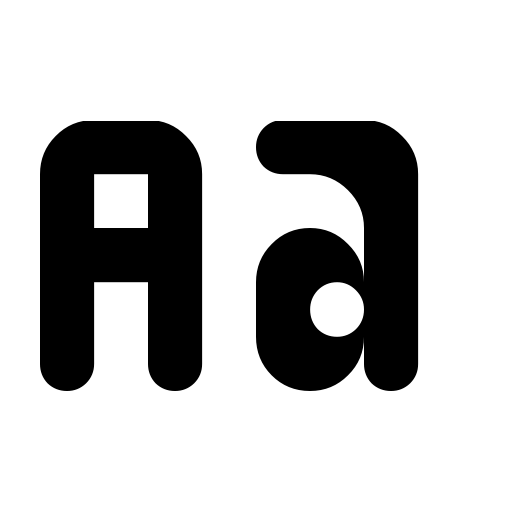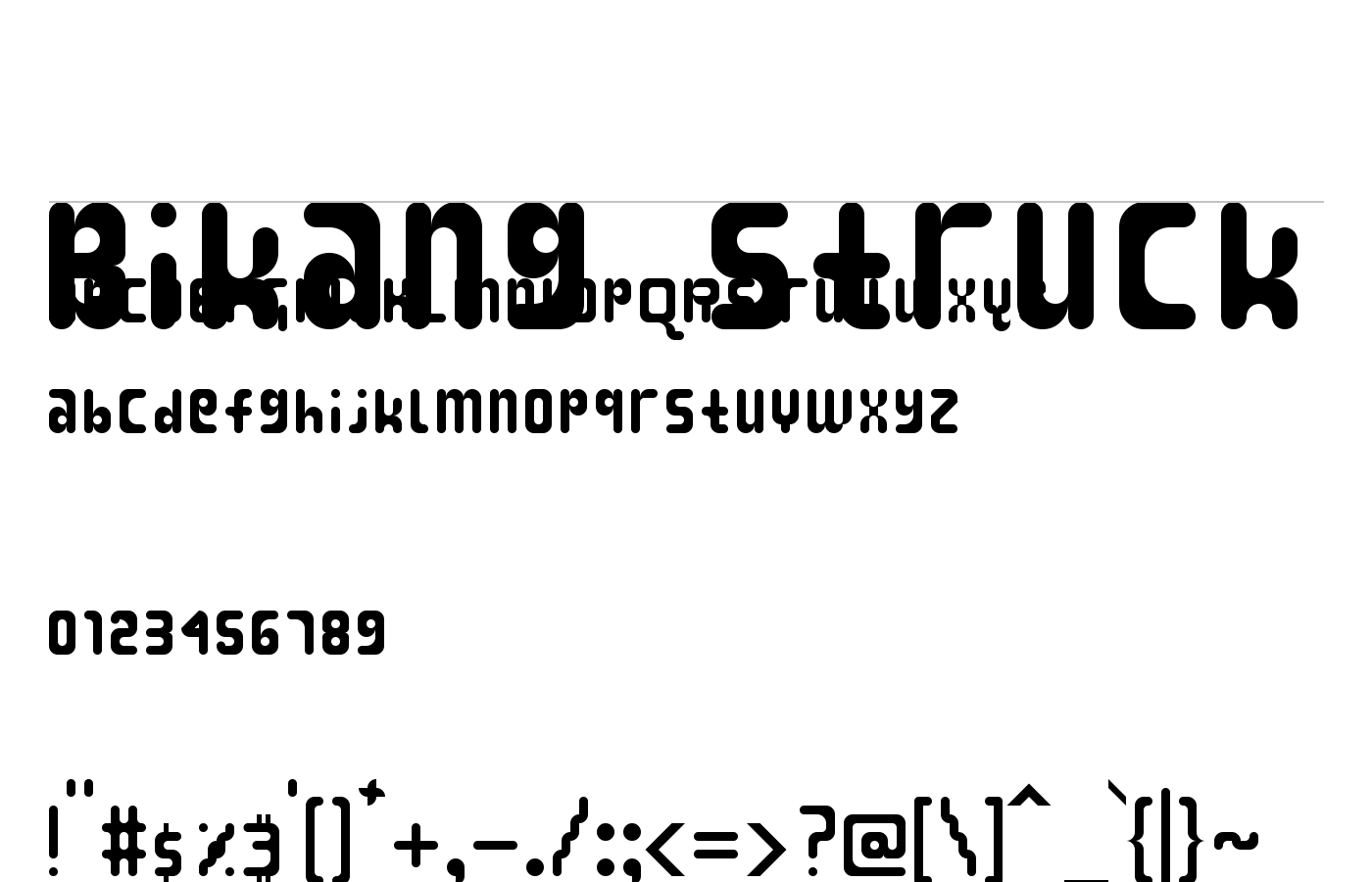
Bikang Struck is a bold, modern sans serif font with a unique, rounded geometric design that combines strong presence with a playful touch. Its condensed width, medium x-height, and consistent stroke weight create a clean, futuristic feel, making it ideal for striking headlines, logos, and branding projects that seek a contemporary and memorable look. This font works well in creative, tech, or avant-garde contexts where a bold, distinctive style is needed to make an impact.
Bikang Struck Font
About Bikang Struck Font